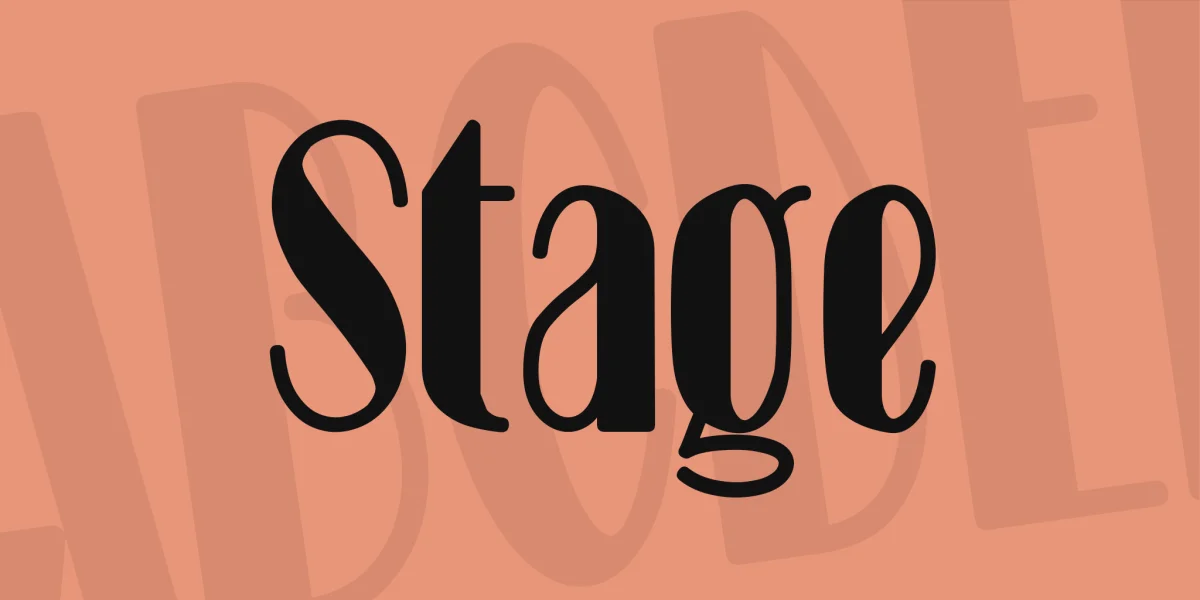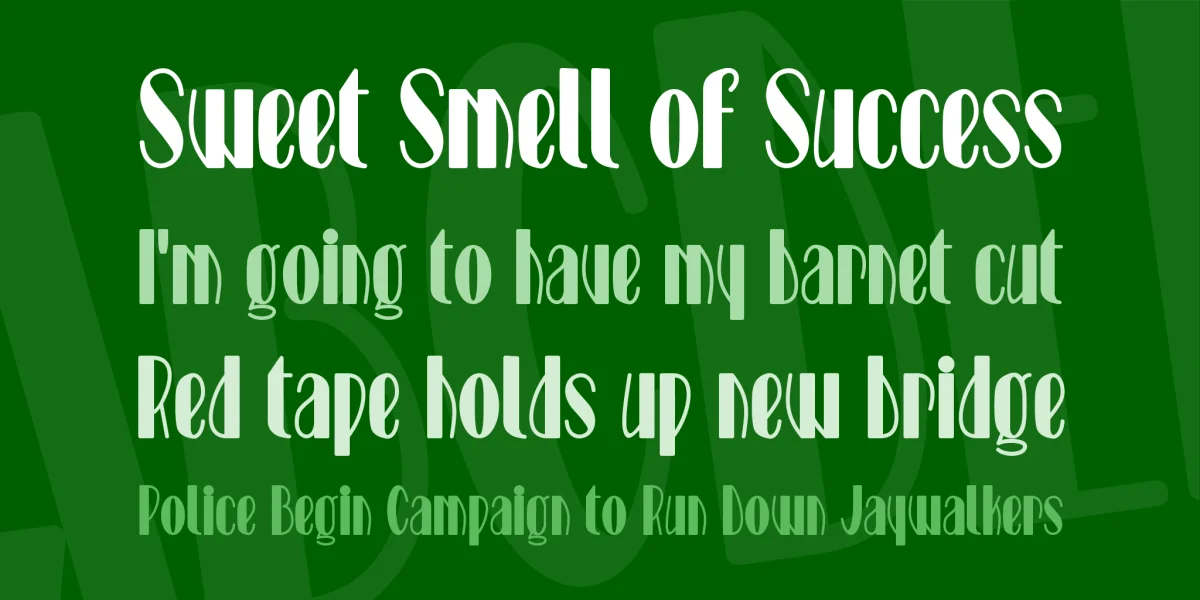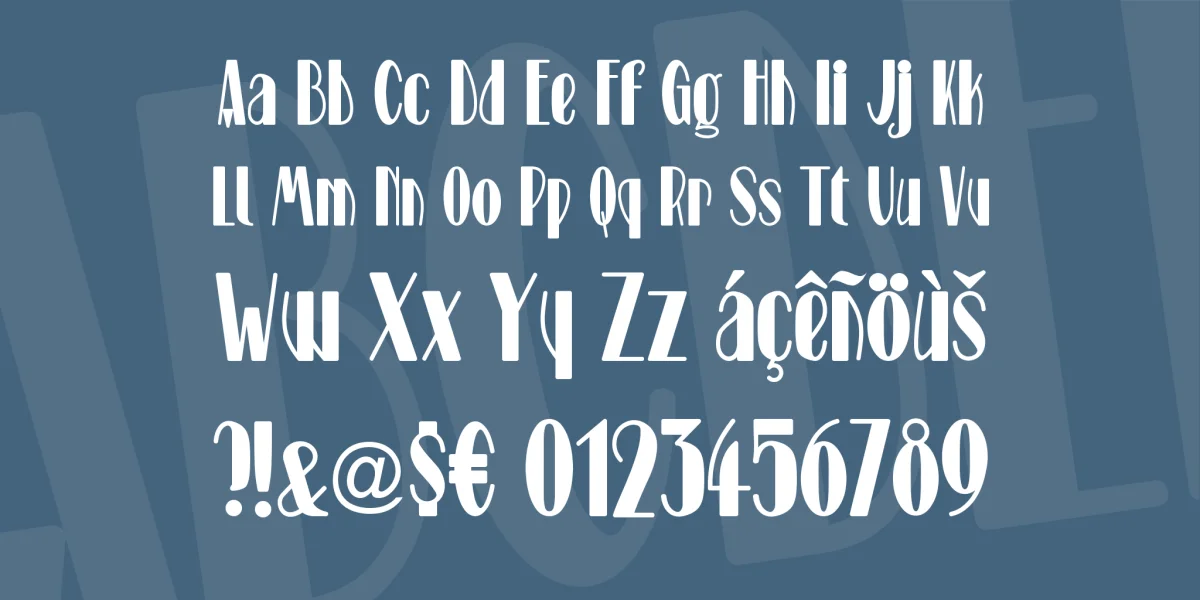
The 20s of the last century: a time of change and upheaval after 1 World War. People needed joy and entertainment, Jazz, Swing and Charleston brought new life and many small stages made for an amusing pastime. With this book I try to save this spirit to the present time over. Maybe yes tells me one of the user, for which he (or she?) Uses this font ... have fun with Stage!